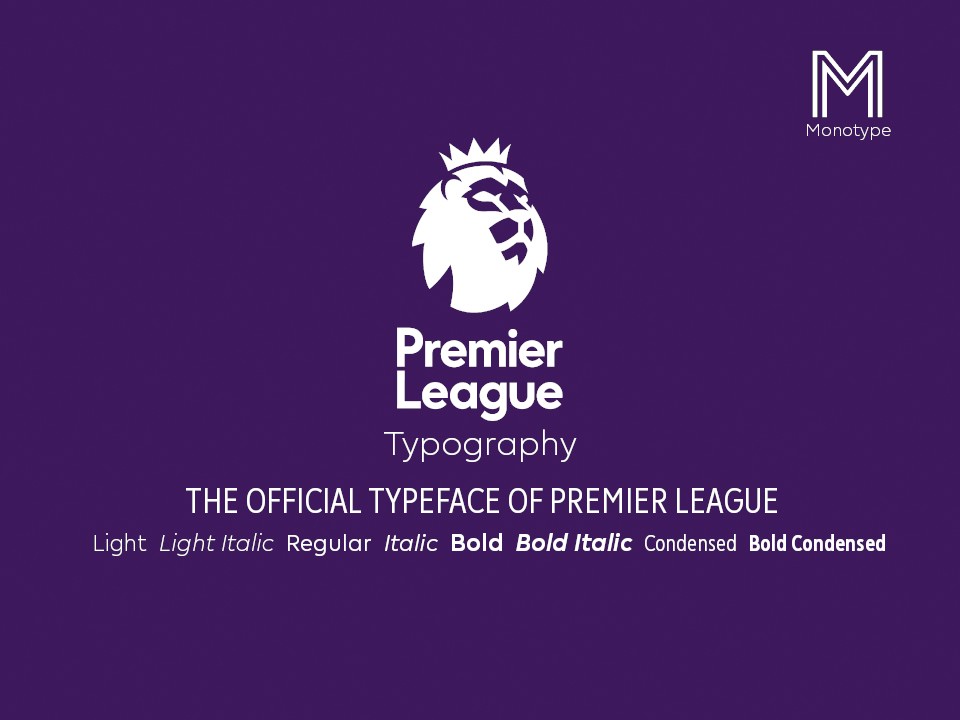
Premier League Corporate Font
Premier League Corporate Font dominates sports marketing campaigns, professional soccer team branding, athletic apparel designs, stadium signage systems, sports broadcasting graphics, championship event materials, league documentation, player contract presentations, corporate sports partnerships, athletic performance reports, sports media publications, and competitive sports communications where championship excellence and professional authority create winning impressions.
This championship typeface generates excitement through its perfect fusion of athletic dynamism with corporate professionalism that creates typography embodying the highest levels of competitive excellence. Premier League Corporate Font captures the prestige and authority of elite football competition with its bold, confident letterforms that command respect and communicate championship caliber. The font's sophisticated design approach reflects the corporate infrastructure behind world-class sports, featuring precise proportions and professional polish that meet the demanding standards of international sports organizations. Its distinctive character embodies the competitive spirit and professional excellence that define premier league athletics.
The Premier League Corporate Font family includes comprehensive championship variations such as Regular, Medium, Bold, Extra Bold, and Heavy weights, each maintaining the font's characteristic authority while offering different levels of competitive impact. The collection features condensed versions for space-efficient applications, extended character sets for international use, and specialized sports-related symbols. Advanced typography features include team number styling, statistical formatting, and corporate documentation standards that meet professional sports industry requirements.
Sports industry professionals consistently choose Premier League Corporate Font Free Download for projects requiring typography that communicates championship excellence and professional credibility. This remarkable typeface excels in applications where establishing authority, competitiveness, and international recognition are essential for brand success. The font's championship qualities make it particularly effective for sports organizations, athletic brands, and corporate sponsors targeting audiences who appreciate elite competition and professional athletic achievement.
Whether you're designing sports team identities, creating championship marketing materials, developing athletic brand campaigns, or building professional sports communications, Premier League Corporate Font delivers unmatched competitive authority. Its ability to convey excellence, professionalism, and championship caliber makes it invaluable for organizations operating in competitive sports markets. The font's premier presence ensures your designs will communicate the elite standards and professional excellence that define championship-level athletic competition and corporate sports partnerships.